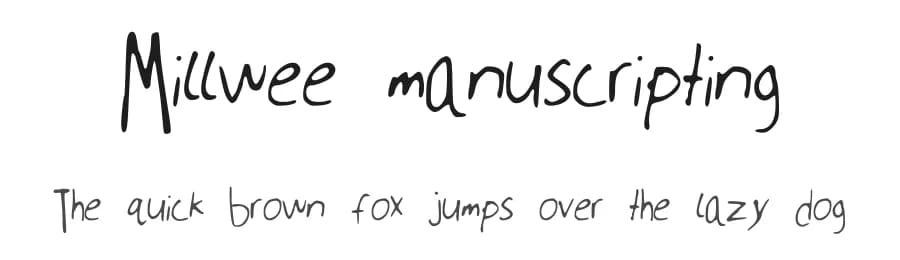
About Millwee manuscripting Font
Millwee manuscripting is a script & handwritten font designed by Jackson Millwee. It includes 143 glyphs, a medium weight, TTF (TrueType) format, and 133 languages. Millwee manuscripting is free to download; check the license details on this page before commercial use. Script & handwritten fonts like Millwee manuscripting work best for wedding invitations, greeting cards, signatures, and elegant branding.
Millwee manuscripting Font is a script font that shines as a display or heading face. Pair it with a clean sans-serif or serif font for body text β the contrast creates a clear hierarchy while the two styles stay balanced and easy to read.
Millwee manuscripting Font